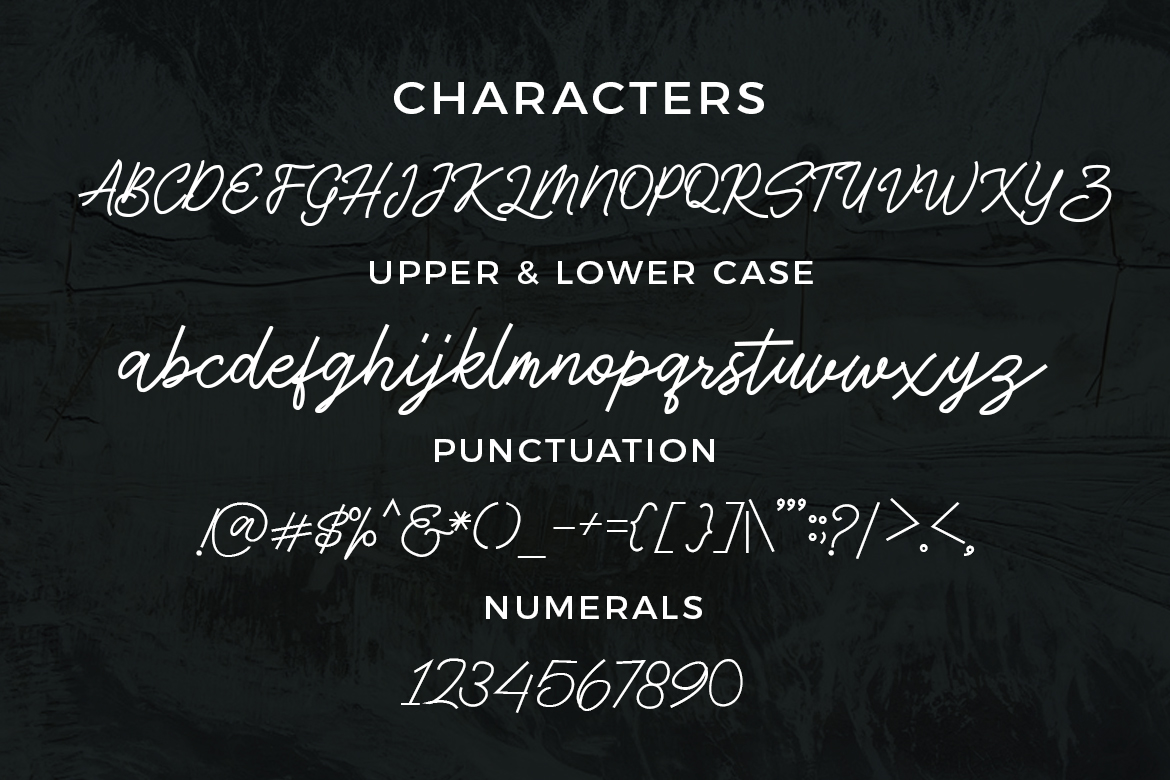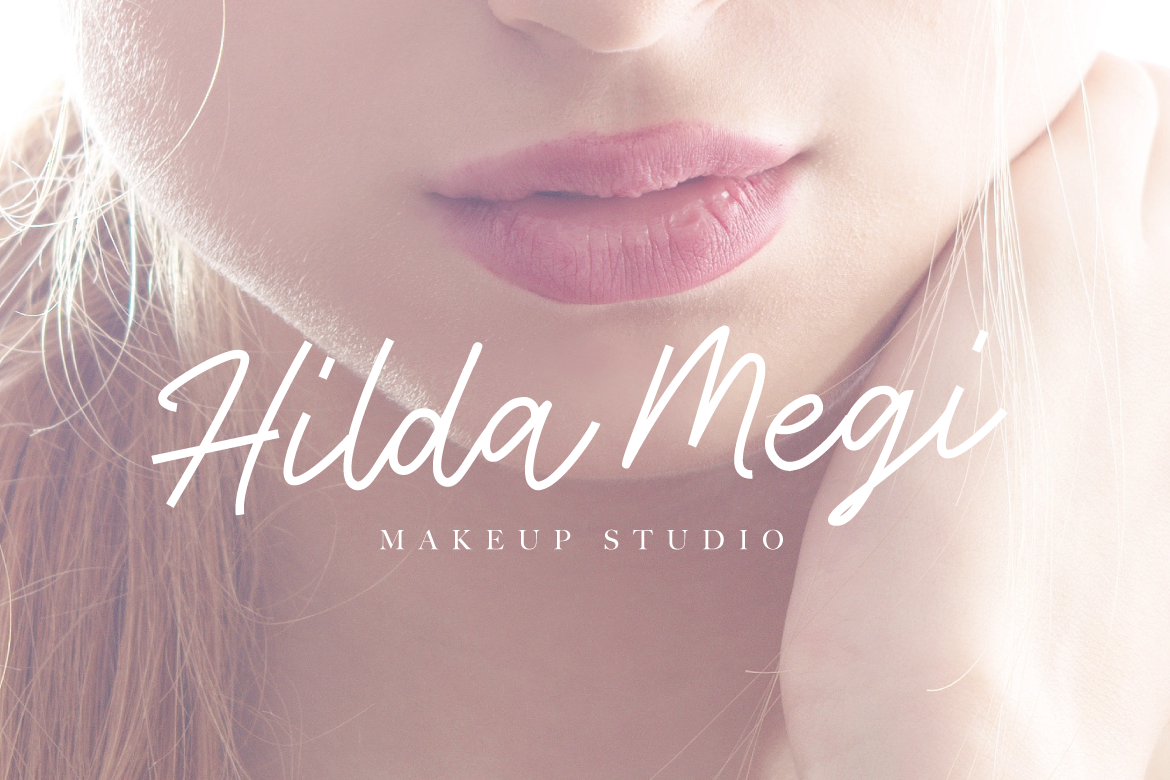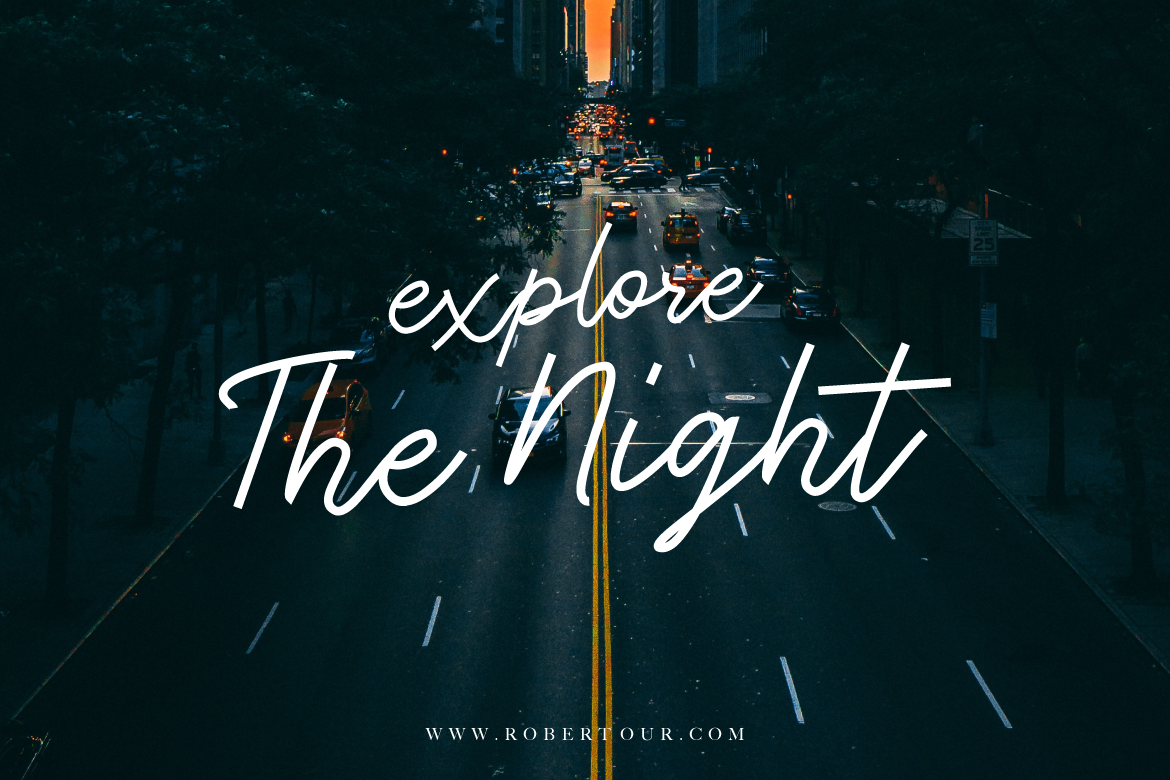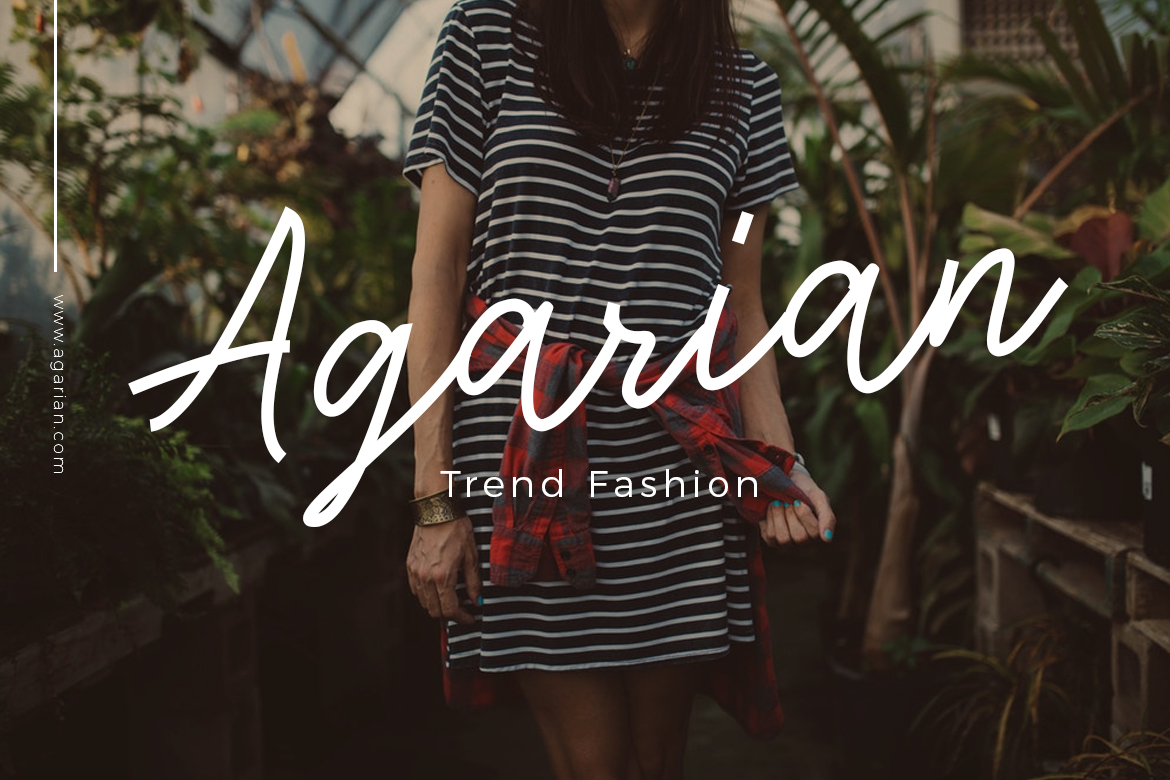
Introducing Antique: A Timeless Monoline Font with a Modern Twist
In the world of typography, few fonts manage to strike a balance between classic elegance and modern flair. Antique, a classy monoline font, is one such gem that has captured the hearts of designers and crafters alike. With its unique variable baseline and natural flow, Antique offers a refreshing take on traditional typography, making it an excellent choice for designs that demand a modern style approach.
The Characteristics of Antique Font
Antique is a handwritten font that exudes sophistication and refinement. Its monoline construction gives it a sleek, streamlined appearance, while its variable baseline and natural flow add a touch of organic elegance. The font’s letterforms are carefully crafted to create a sense of fluidity and movement, making it perfect for designs that require a sense of dynamism and energy.
What Makes Antique Stand Out
So, what sets Antique apart from other fonts in its class? Here are a few key features that make it a standout:
- Variable Baseline: Antique’s variable baseline gives it a unique, hand-crafted feel that sets it apart from more rigid fonts.
- Natural Flow: The font’s natural flow and fluid letterforms create a sense of movement and energy, making it perfect for designs that require a sense of dynamism.
- Monoline Construction: Antique’s monoline construction gives it a sleek, modern appearance that’s perfect for designs that demand a contemporary style approach.
Uses for Antique Font
Antique is a versatile font that can be used in a wide range of design applications. Here are a few ideas to get you started:
- Branding and Logo Design: Antique’s unique blend of classic and modern elements makes it an excellent choice for branding and logo design.
- Wedding and Event Design: The font’s elegant, refined appearance makes it perfect for wedding and event design, including invitations, menus, and more.
- Packaging Design: Antique’s modern style approach and natural flow make it an excellent choice for packaging design, particularly for luxury brands.
Tips for Using Antique Font
To get the most out of Antique, here are a few tips to keep in mind:
- Use it sparingly: Antique is a statement font, so use it sparingly to avoid overwhelming your design.
- Pair it with contrasting fonts: Pair Antique with contrasting fonts to create visual interest and add depth to your design.
- Experiment with colors: Antique looks great in a range of colors, so don’t be afraid to experiment and find the perfect hue for your design.
In conclusion, Antique is a timeless monoline font that offers a unique blend of classic elegance and modern flair. With its variable baseline, natural flow, and sleek monoline construction, Antique is the perfect choice for designers and crafters looking to add a touch of sophistication to their designs. Whether you’re working on a branding project, wedding design, or packaging project, Antique is sure to make a lasting impression.